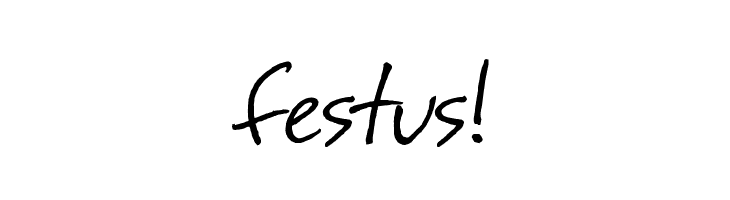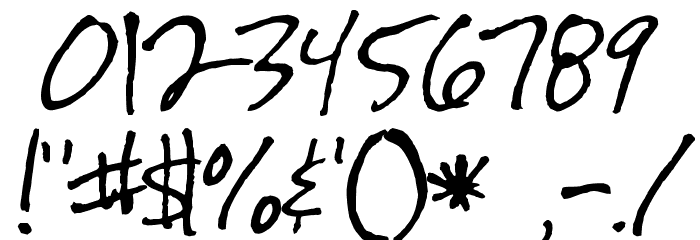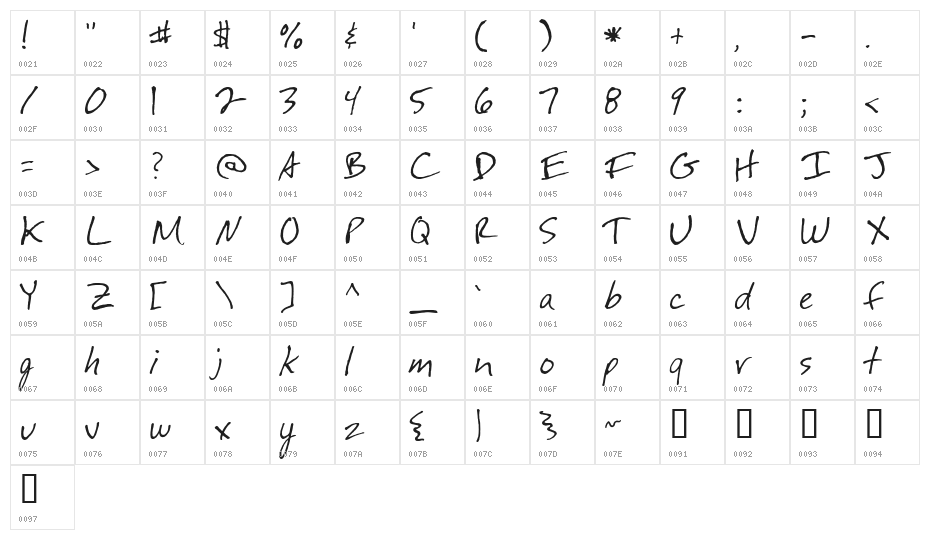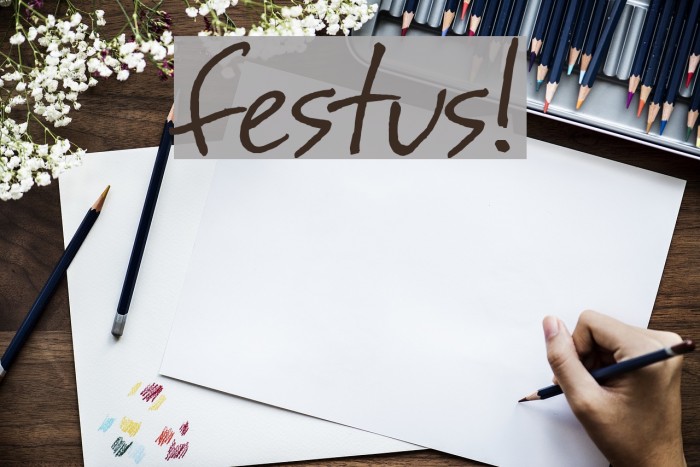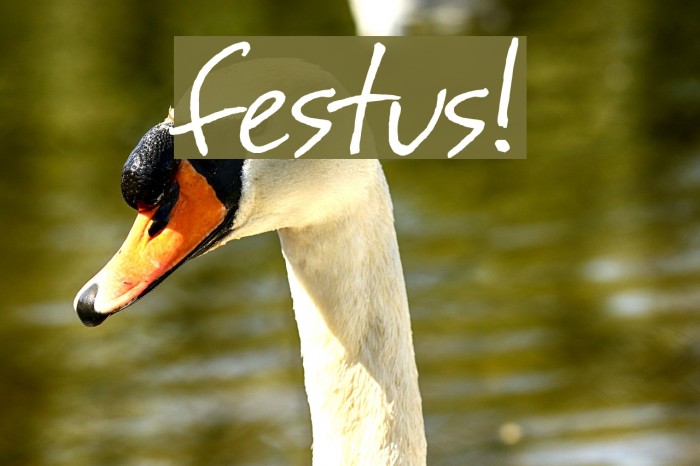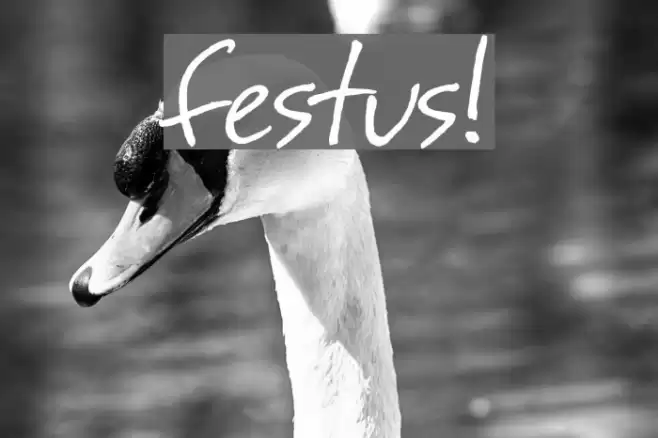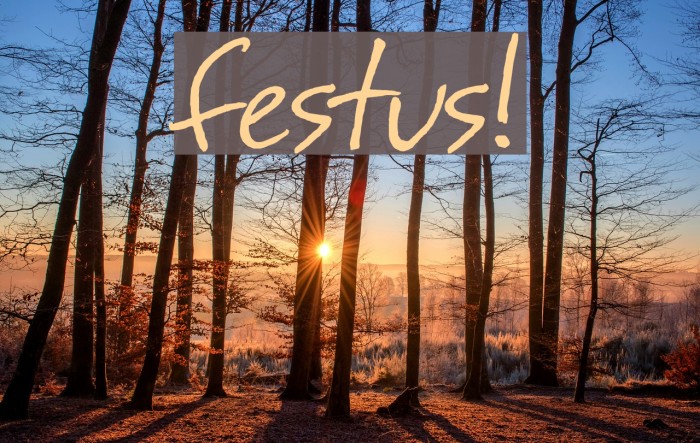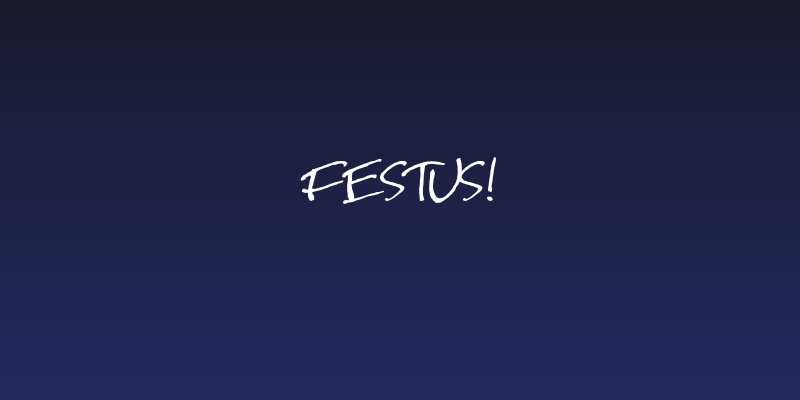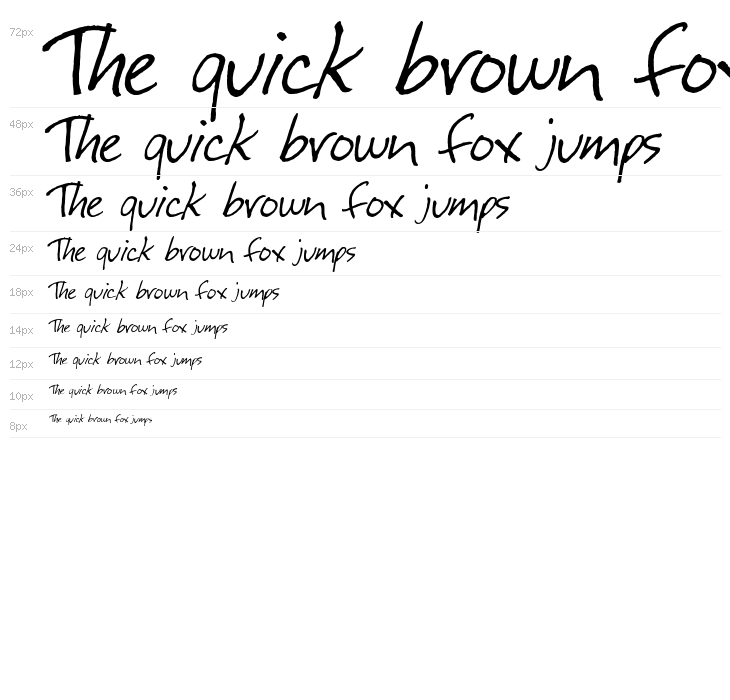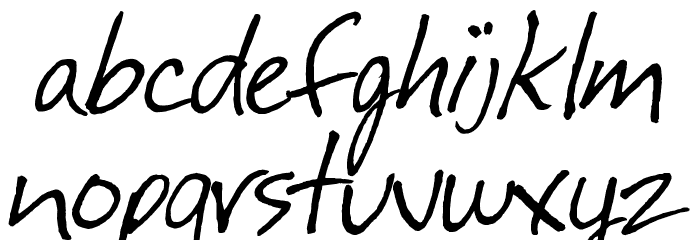
festus! Font
festus! Description
This font exudes a casual and handwritten style, characterized by its loose and flowing strokes. The letters are unevenly spaced, giving it an authentic, personal touch. The uppercase and lowercase letters maintain a consistent style, with slightly exaggerated curves and a playful, informal appearance. The numbers and special characters follow the same handwritten aesthetic, making the font versatile for creative projects. Its organic and spontaneous feel makes it suitable for designs that require a personal or artistic touch.
| Overall Style | Casual, Artistic |
| Use Case | Logos, Greeting Cards, Informal Branding |
| Proposed Projects | Ideal for greeting cards, personal notes, artistic projects, and informal branding. |